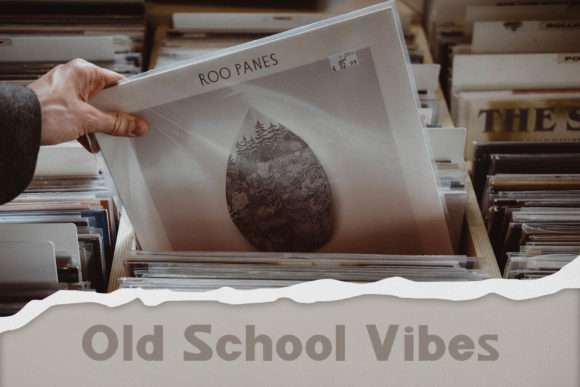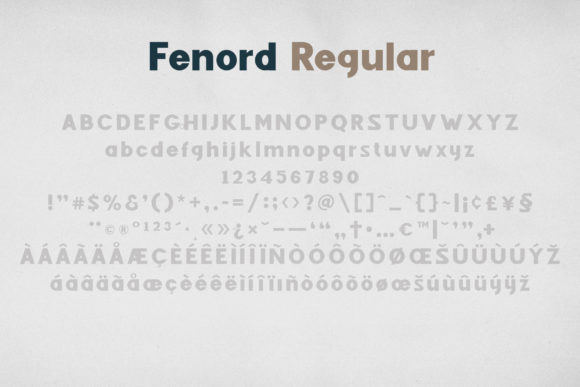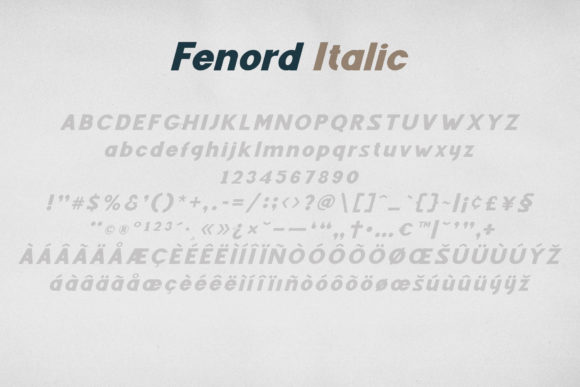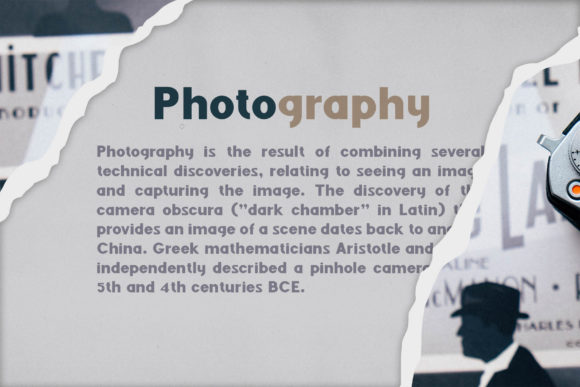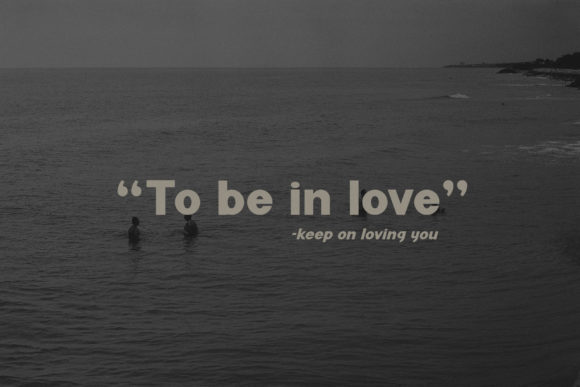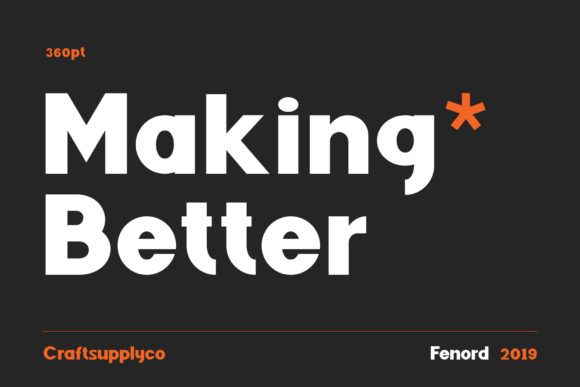
The Fenord Font: A Timeless Choice for Creative Projects
Have you ever been in the middle of a design project, and suddenly, you’re stuck on finding the perfect font? I recall a recent experience where I was working on a branding project for a client, and I just couldn’t seem to find a font that captured the essence of their brand. That’s when I stumbled upon the Fenord font, and it completely transformed my design. In this article, we’ll dive into the world of Fenord, exploring its features, uses, and everything in between.
A Personal Encounter with Fenord
Fenord is a simple, yet bold sans serif font with a classic feel. It’s one of those fonts that can instantly elevate your design project from ordinary to extraordinary. I was immediately drawn to its clean lines, elegant curves, and versatility. Whether you’re a designer, crafter, or creative hobbyist, Fenord is an excellent addition to your font library.
An Honest Review of Fenord
What I Love About Fenord
- ✨ Classic feel: Fenord has a timeless quality that makes it suitable for a wide range of design projects, from modern branding to vintage-inspired crafts.
- ✅ Elegant simplicity: The font’s clean lines and simple shapes make it easy to read and visually appealing.
- 💡 Versatility: Fenord works well in various design contexts, including headings, body text, and even titles.
While Fenord is an excellent font, it’s not without its quirks. For instance:
- 🤔 Limited glyphs: Fenord has a relatively small set of glyphs, which might limit its use in certain design projects that require a wide range of special characters.
- ⚠️ Not ideal for body text: While Fenord is readable, it’s not the best choice for long blocks of body text. It’s better suited for headings, titles, and short paragraphs.
The Story Behind Fenord
Fenord was designed with the goal of creating a simple, yet bold sans serif font that would evoke a sense of classic elegance. The designer aimed to craft a font that would be versatile and easy to read, making it perfect for a wide range of design projects. While the exact story behind Fenord’s creation is unclear, it’s evident that the font has been carefully crafted to meet the needs of designers and creative professionals.
Q: What type of projects is Fenord best suited for?
A: Fenord is an excellent choice for branding, advertising, and editorial projects that require a classic and elegant feel.
Q: Is Fenord a script font?
A: No, Fenord is a sans serif font with a simple and elegant design.
Q: Can I use Fenord in my digital designs?
A: Absolutely! Fenord is a versatile font that works well in both digital and print designs.